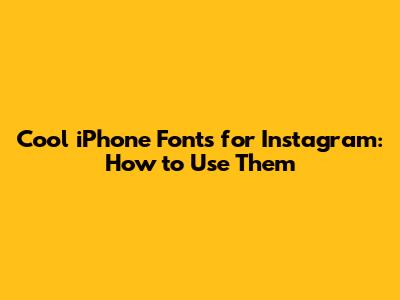
Hey guys! Ever wonder how some people have those super stylish fonts on their Instagram bios and captions? Chances are, they're rocking some cool iPhone fonts! It's a fantastic way to make your profile stand out and inject some personality into your posts. But how do you actually get those awesome fonts on your Insta, especially when Instagram itself offers a pretty limited selection? Well, buckle up, because we're about to dive deep into the world of iPhone fonts for Instagram, and I'm going to show you exactly how to use them to spice up your social media game. The key is understanding that Instagram doesn't directly offer a huge range of font choices within the app itself. So, we need to get a little creative and use some clever workarounds. Think of it like adding a secret ingredient to your favorite recipe – it's that extra oomph that makes all the difference. We’ll explore different apps and websites that generate these fancy fonts, and I'll walk you through the simple steps to copy and paste them into your Instagram bio, captions, and stories. Plus, I'll give you some tips on choosing the right font to match your personal brand and the overall vibe you're going for. Whether you're a business trying to attract new followers or just someone who wants to add a little flair to their personal account, mastering the art of cool iPhone fonts on Instagram is a game-changer. So, let's get started and transform your Instagram presence from ordinary to extraordinary!
Why Use Different Fonts on Instagram?
Let's be real, on Instagram, you're battling for attention in a sea of endless scrolling. Using different fonts is like adding a giant neon sign to your profile – it instantly grabs the eye and makes you more memorable. Think about it: most people stick with the standard Instagram font, which is perfectly fine, but it doesn't exactly scream unique. When you use a different font, you're immediately signaling that you're willing to go the extra mile to stand out. It shows you're creative, detail-oriented, and care about the aesthetics of your online presence. Different fonts can also help you convey different moods and messages. A bold, sans-serif font might be perfect for announcing a sale or promoting a new product, while a delicate, cursive font could be ideal for sharing a heartfelt quote or a personal story. Choosing the right font is like choosing the right outfit – it should reflect your personality and the message you're trying to send. Beyond just aesthetics, using different fonts can also improve readability. Sometimes, the standard Instagram font can get a little monotonous, especially in long captions. Breaking up the text with different fonts can make it easier for people to scan and digest your content. This is especially important if you're trying to share valuable information or tell a compelling story. And let's not forget about branding! If you're a business, using a consistent set of fonts across your Instagram profile can help you establish a strong brand identity. Think about some of the biggest brands on Instagram – they all have a distinct visual style, and fonts play a big role in that. So, whether you're a business owner, an influencer, or just someone who wants to make their Instagram profile a little more interesting, experimenting with different fonts is a smart move. It's a simple yet effective way to grab attention, express your personality, improve readability, and build a strong brand. Trust me, once you start using different fonts, you'll wonder how you ever lived without them!
Finding Cool Fonts for Your iPhone
Okay, so you're convinced that you need some fresh fonts for your Instagram game. But where do you find them? Don't worry, the internet is overflowing with options! The key is to find font generators that work on your iPhone and allow you to easily copy and paste the text into Instagram. Let's break down some of the best methods: There are tons of font generator apps available on the App Store. These apps are usually free to download (though some may offer premium features for a small fee) and provide a wide variety of fonts to choose from. Some popular options include Fonts for Instagram, Cool Fonts, and Font Keyboard. These apps typically work by creating a custom keyboard that you can use within other apps, including Instagram. When you type, the app automatically converts your text into the selected font. This makes it super easy to experiment with different fonts and see how they look in real-time. Simply search for "fonts for Instagram" or "cool fonts" in the App Store and browse the options. Read the reviews to get a sense of which apps are the most reliable and user-friendly. Many websites offer font generation services directly in your browser. These websites work by allowing you to type your text into a box, and then they generate a variety of fonts for you to choose from. You can then simply copy and paste the text into Instagram. Some popular websites include Cool Fancy Text Generator, LingoJam, and FontSpace. These websites are great because they don't require you to download anything, and they often offer a wider selection of fonts than the apps. Plus, they're accessible from any device, so you can use them on your computer or tablet as well. If you're feeling extra creative, you can even create your own custom fonts using font design software. This is a more advanced option, but it allows you to create truly unique fonts that no one else has. Some popular font design software includes iFontMaker (for iPad) and Calligraphr. Creating your own fonts takes time and effort, but it can be a rewarding way to express your creativity and build a strong brand identity. No matter which method you choose, make sure to test out a few different fonts to see which ones you like best. Experiment with different styles and sizes to find the perfect font for your Instagram profile.
Step-by-Step: Using Fonts on Instagram
Alright, you've found your perfect font, now let's get it onto Instagram! Here’s a simple, step-by-step guide: First, type the text you want to use in your chosen font generator app or website. This could be your Instagram bio, a caption for a photo, or text for an Instagram Story. Take your time and make sure the text is exactly how you want it. Once you're happy with your text, copy it to your iPhone's clipboard. This is usually done by tapping a "copy" button within the app or website. Now, open the Instagram app and navigate to the section where you want to use the font. This could be your profile page (to edit your bio), a new post (to write a caption), or the Instagram Story creation screen. Paste the text you copied from the font generator into the Instagram text field. On your profile page, tap "Edit Profile" and then paste the text into the "Bio" field. For a new post, tap the "+" button to create a new post, add your photo or video, and then paste the text into the caption field. For an Instagram Story, tap the "Aa" button to add text, and then paste the text into the text field. Once you've pasted the text, you can adjust the size, color, and placement of the text within Instagram. Use the Instagram editing tools to make sure the text looks exactly how you want it. If you're using the font in your bio, be sure to save your changes by tapping "Done." If you're using the font in a caption or Story, tap "Share" to publish your post or Story. That's it! You've successfully used a cool iPhone font on Instagram. Remember to experiment with different fonts and placements to find what works best for you. With a little practice, you'll be a font master in no time! If you want to change the font again, simply repeat these steps with a different font generator app or website. Keep in mind that some fonts may not display correctly on all devices, so it's always a good idea to check how your text looks on different iPhones and Android devices. And that is all there is to it, easy peasy.
Tips for Choosing the Right Font
Choosing the right font is crucial! Think of your font as part of your personal brand. Here's some advice: First, consider your brand identity. What kind of message are you trying to convey? Are you fun and playful, or serious and professional? Choose a font that reflects your brand's personality. A bold, sans-serif font might be perfect for a tech company, while a delicate, script font could be ideal for a beauty brand. Think about the overall aesthetic of your Instagram profile. Do you have a consistent color scheme and style? Choose a font that complements your existing aesthetic. If you have a minimalist profile, a simple, clean font might be the best choice. If you have a more colorful and eclectic profile, you can get away with a more playful font. Different fonts evoke different emotions. A bold font can convey confidence and authority, while a light, airy font can convey elegance and sophistication. Consider the emotions you want to evoke with your Instagram posts and choose a font that aligns with those emotions. Make sure your font is easy to read! While it's tempting to choose a super fancy font, if it's difficult to read, people will simply scroll past your posts. Choose a font that is clear and legible, even at small sizes. It is better to be readable than fancy. Don't be afraid to experiment! Try out a few different fonts to see which ones you like best. You can even use different fonts for different types of content. For example, you might use a bold font for announcements and a more delicate font for personal stories. Finally, maintain consistency. Once you've found a font (or a few fonts) that you like, stick with them! Using the same fonts consistently will help you build a strong brand identity and make your Instagram profile more recognizable. By following these tips, you can choose the perfect font for your Instagram profile and make your posts stand out from the crowd. Remember, your font is a reflection of your brand and personality, so choose wisely!
Common Issues and How to Solve Them
Even with the best planning, things can sometimes go wrong. Here are some common issues you might encounter when using iPhone fonts on Instagram, and how to troubleshoot them: Sometimes, a font that looks great on your iPhone might not display correctly on other devices, especially Android phones. This is because different devices have different font rendering capabilities. To solve this, always test your fonts on multiple devices before posting. Ask your friends or family members to check how your fonts look on their phones. If a font isn't displaying correctly on certain devices, try using a different font or sticking to more common fonts that are widely supported. Instagram has limitations on the number of characters you can use in your bio and captions. If you're using a font that takes up a lot of space, you might run out of characters before you can finish writing your message. To solve this, try using a shorter font or abbreviating some of your words. You can also try breaking up your text into smaller chunks to make it more readable. Some fonts can be difficult to read, especially on small screens. If your font is too ornate or stylized, people might have trouble deciphering your message. To solve this, choose a font that is clear and legible, even at small sizes. Avoid using fonts with excessive swirls or decorations. If you're using a font generator app, it might not always be compatible with the latest version of Instagram. This can cause the font to display incorrectly or not at all. To solve this, make sure you're using the latest version of the font generator app and the Instagram app. If the issue persists, try using a different font generator app or website. Finally, incorrect copy-pasting can cause issues. Make sure you are selecting the entire text in the font generator, and using the "copy" function correctly. If all else fails, restart your phone, as this can sometimes resolve minor software glitches. By following these troubleshooting tips, you can overcome common issues and ensure that your iPhone fonts display correctly on Instagram. Don't let technical problems discourage you from experimenting with different fonts and expressing your creativity!